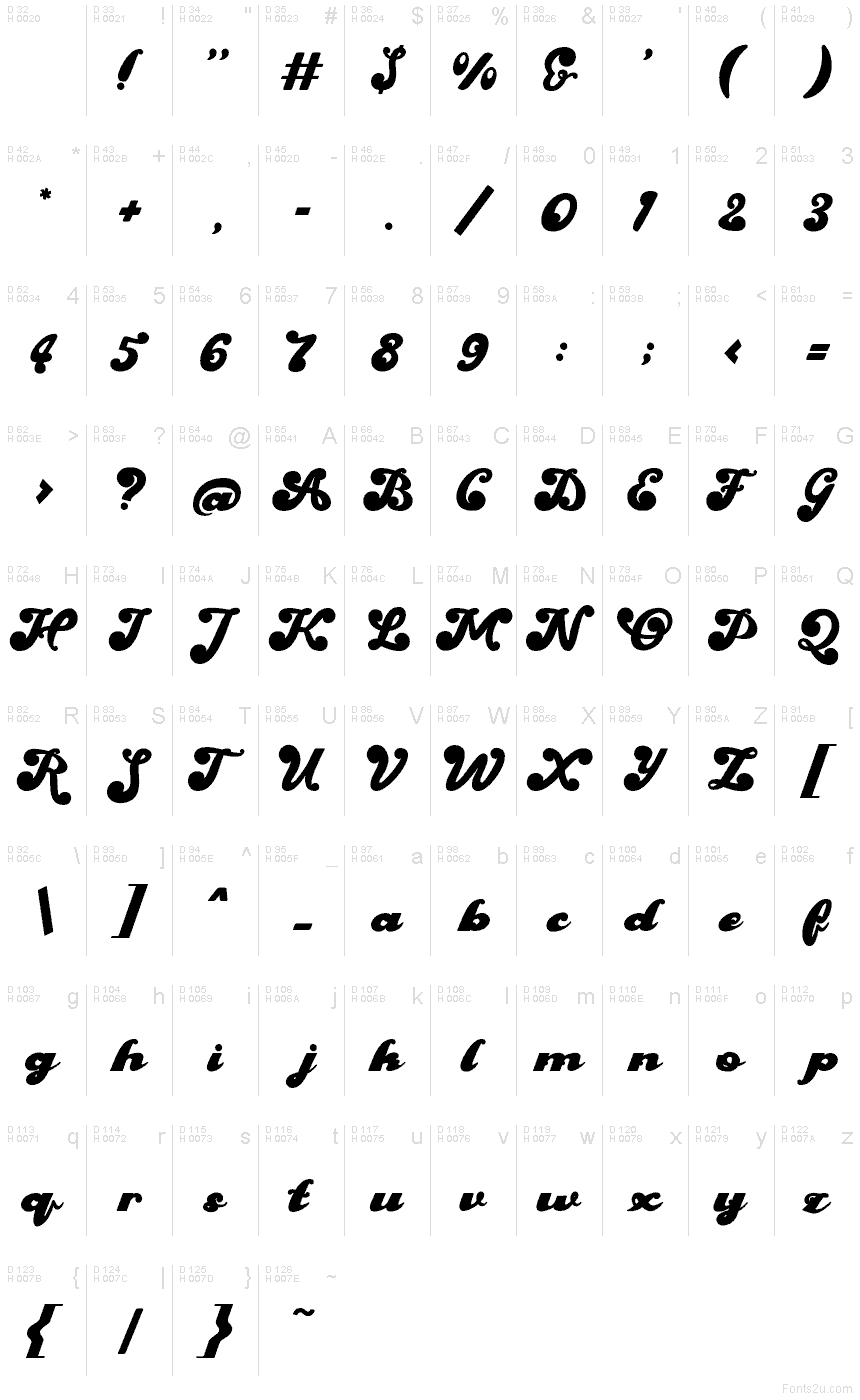
Last Show
Last Show font by PutraCetol Studio is a bold expressive brush font with a playful vibe. A unique retro-inspired style instantly puts it under the spotlight. Its cursive writing, along with decorative flair, gives it a nostalgic charm that no display can withstand. Even the shortest of words will appear exuberant and rich using this masterpiece.
Expect to use Last Show for invitations, headlines for magazines or newspapers, branding projects and packaging. It can be used just as well on social media posts, digital marketing campaigns such as newsletters, brochures, infographics or landing pages.